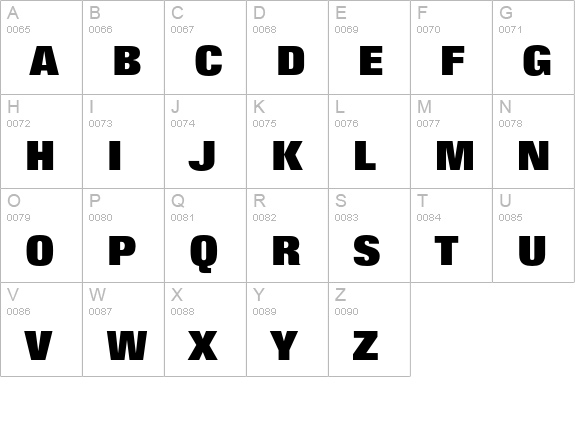
Folio Extra Bold is a strong, high-contrast variant in the Folio typeface family \xE2\x80\x94 well suited to headlines, attention-grabbing titles, and strong calls-to-action.
Folio Extra Bold is a striking and commanding font that exudes strength and confidence. With its bold weight and clean lines, this typeface demands attention and makes a powerful statement. Ideal for headlines, titles, and branding materials, Folio Extra Bold is sure to make an impact in any design project. And the best part? Folio Extra Bold is available for free download at FontsMarket.com. This means that you can easily add this impressive font to your collection without any cost. Don't miss out on the opportunity to enhance your designs with the bold and impactful style of Folio Extra Bold. Download it now and take your projects to the next level!